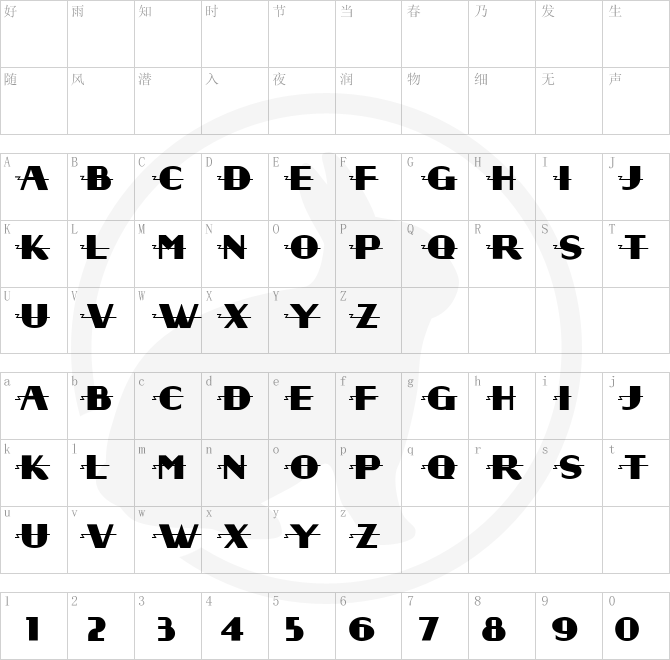
- Font Name:Radio Days NF
Radio-Days-NF.ttf is a very beautiful artistic font, Radio-Days-NF.ttf is widely used in the design and printing of various books and pictures,Radio-Days-NF.ttf has a strong visual impact,Radio-Days-NF.ttf is a commonly used font in newspapers, magazines and books, and is used in posters, e-commerce Poster design, store design, logo design, font design and other fields.Radio-Days-NF.